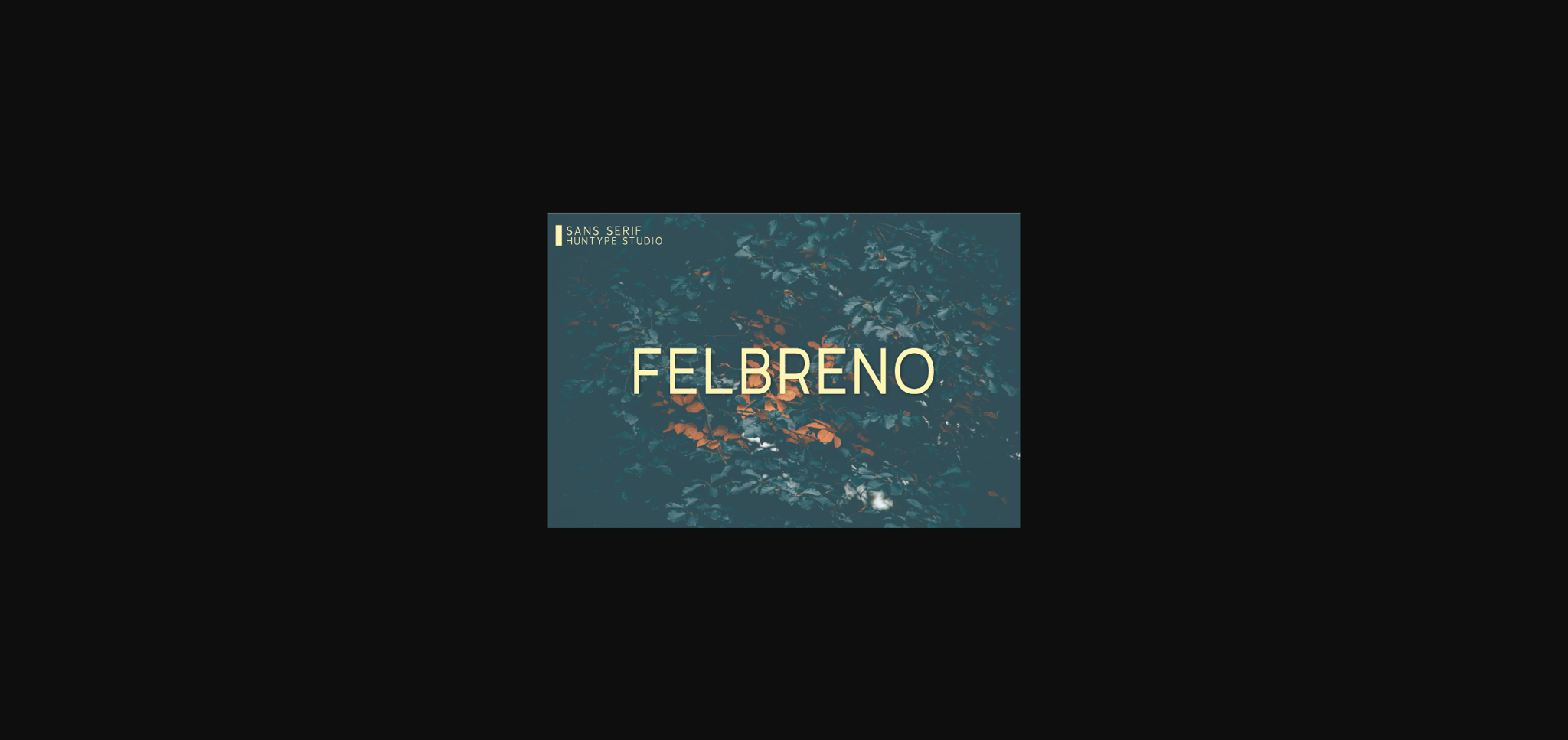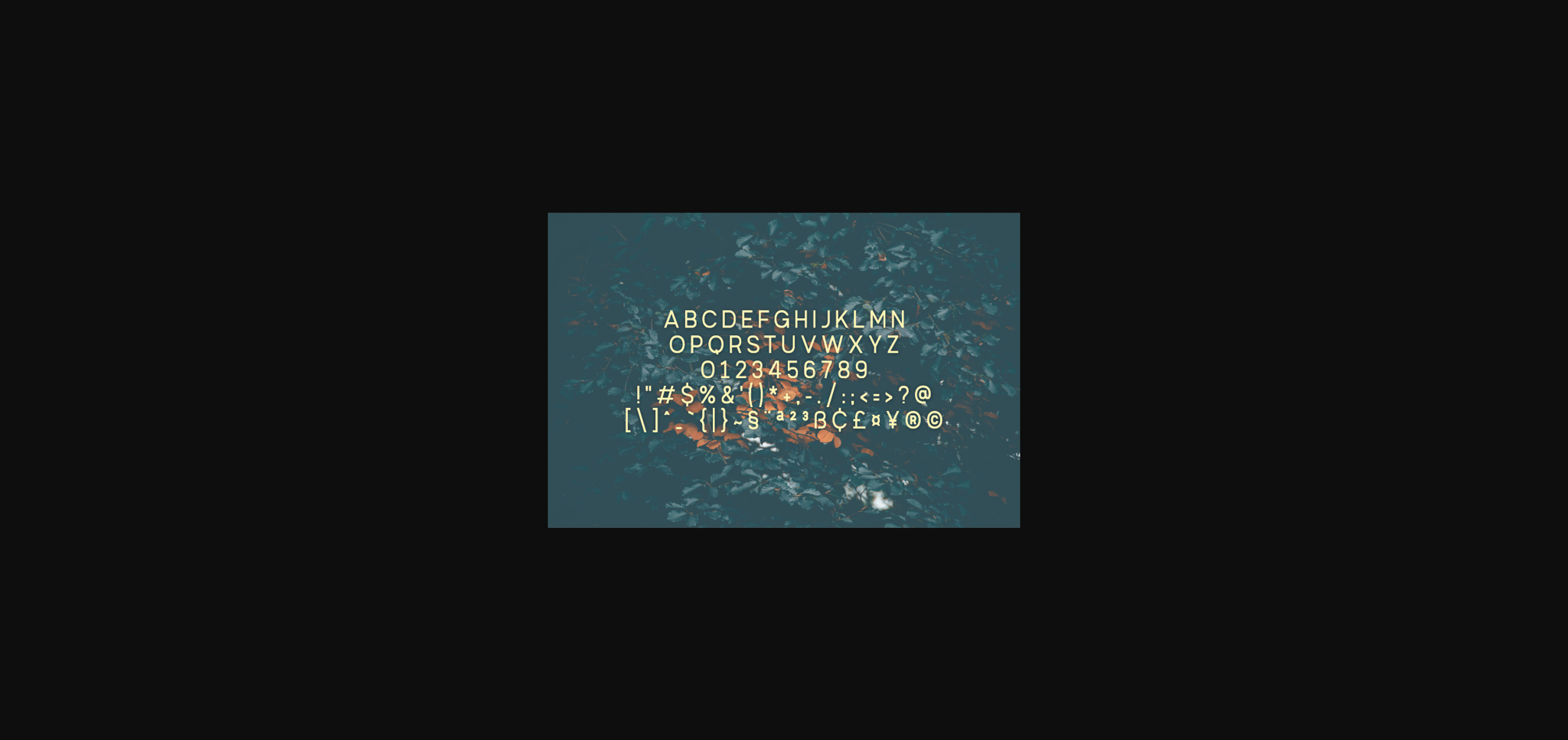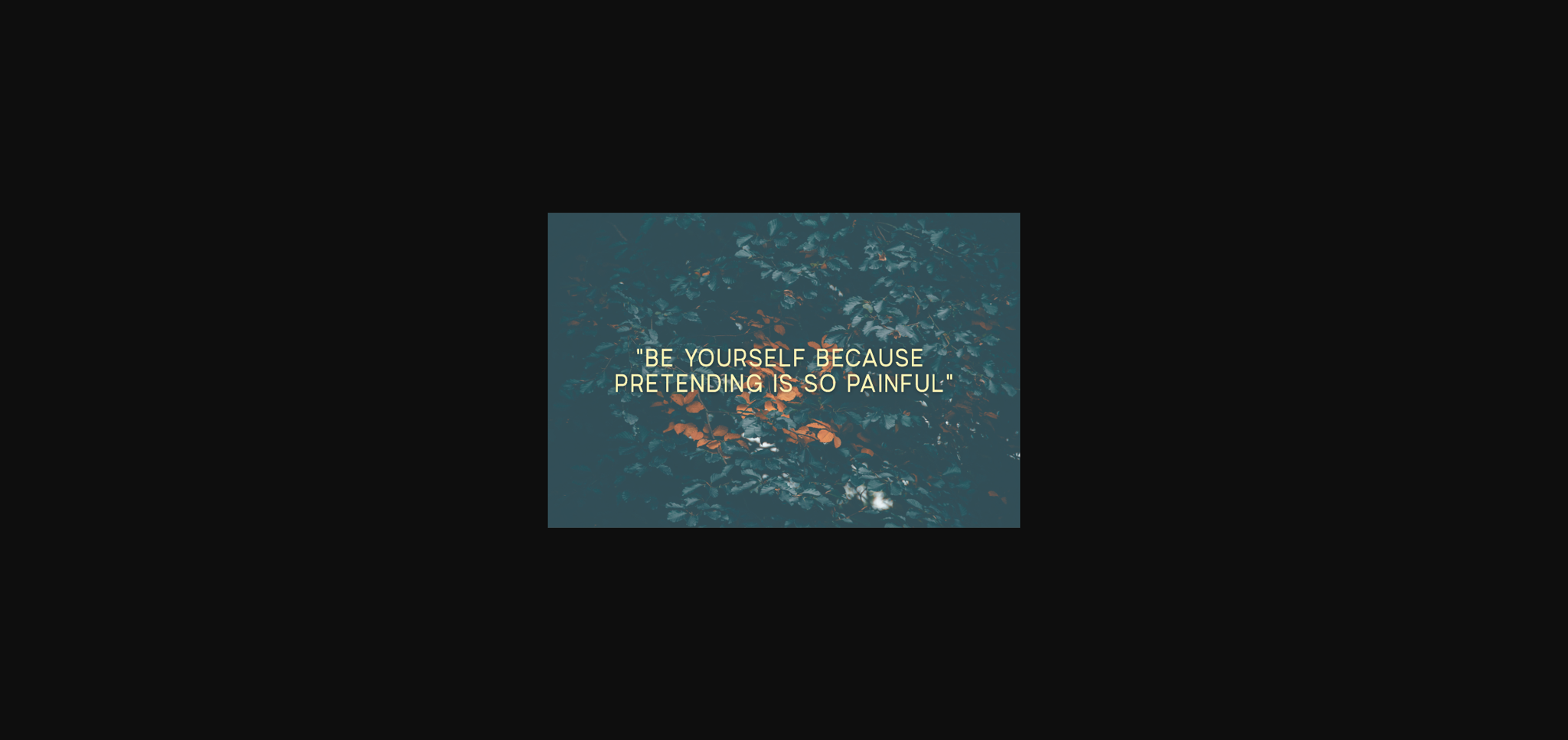
Felbreno Font
About Felbreno Font
Felbreno is a distinct and delicate sans serif font. It has a clean, authentic and smooth vibe and it will be a hit for any design that you want to add it to.